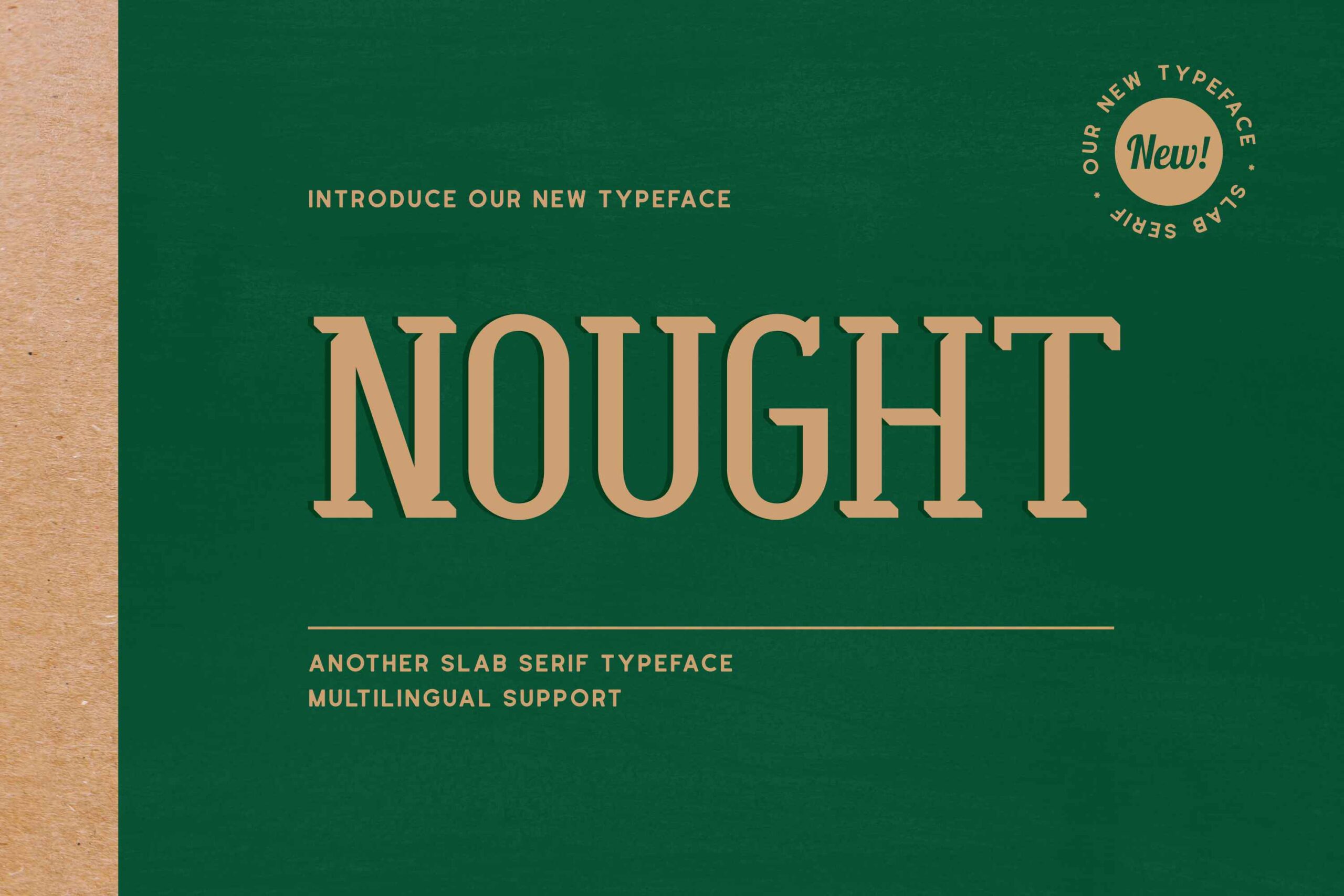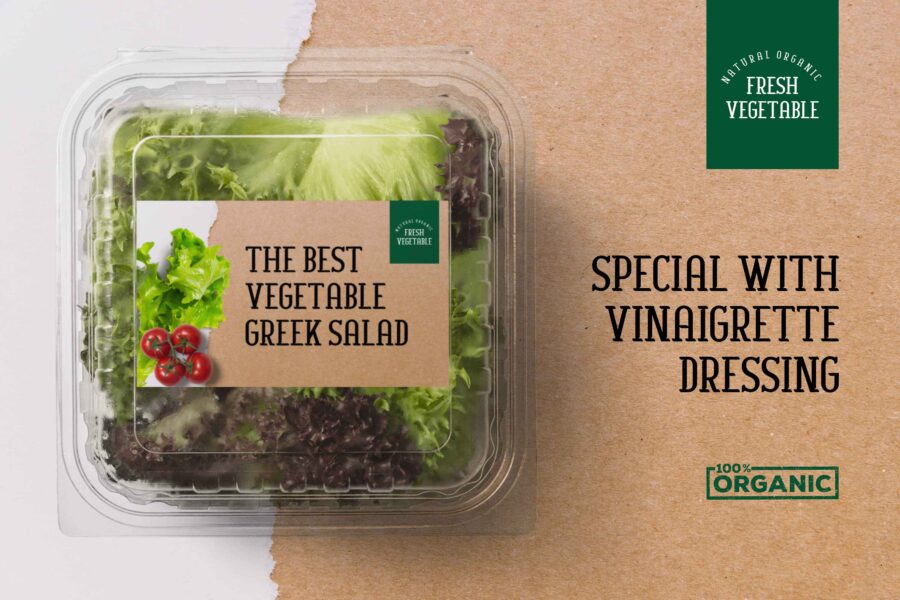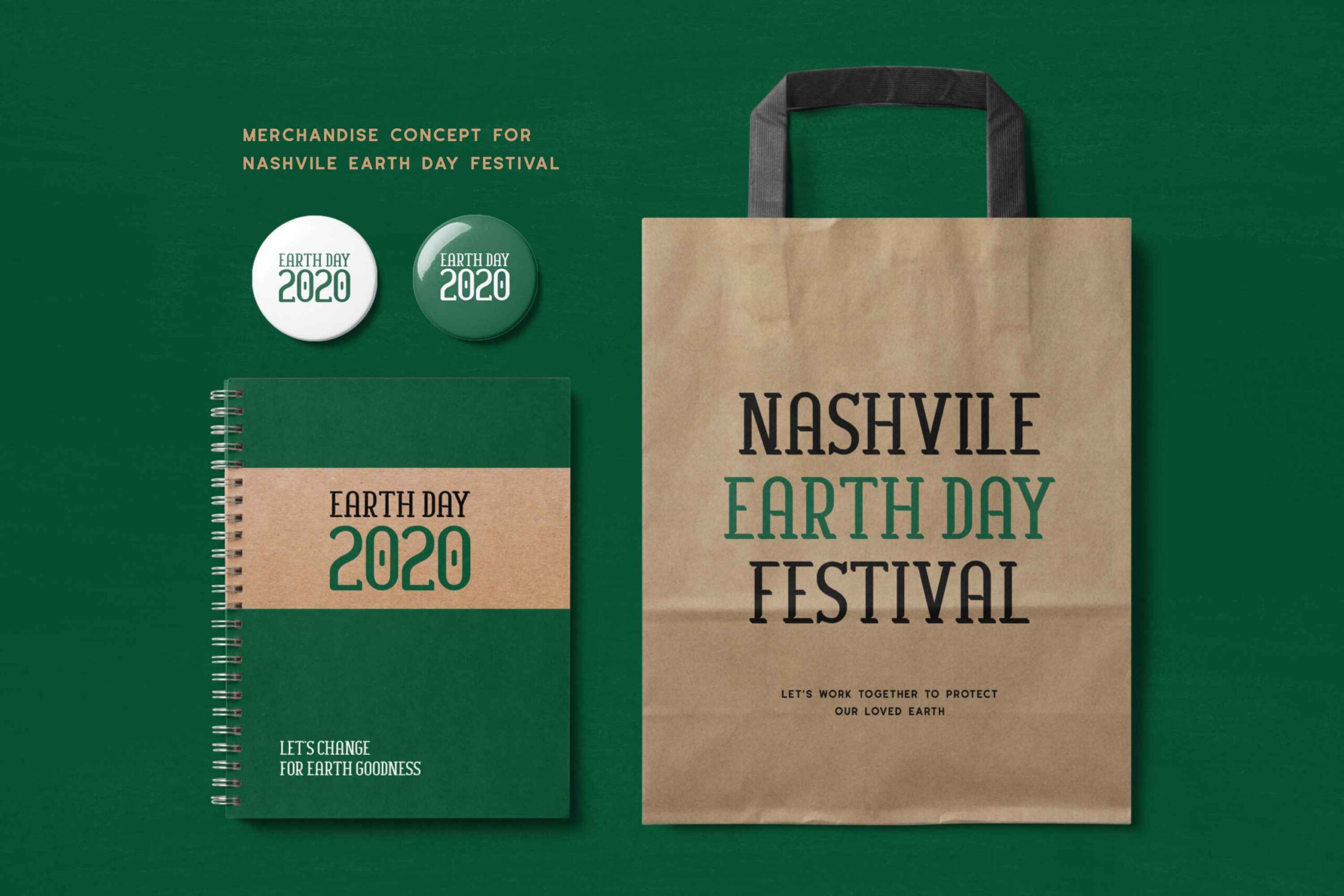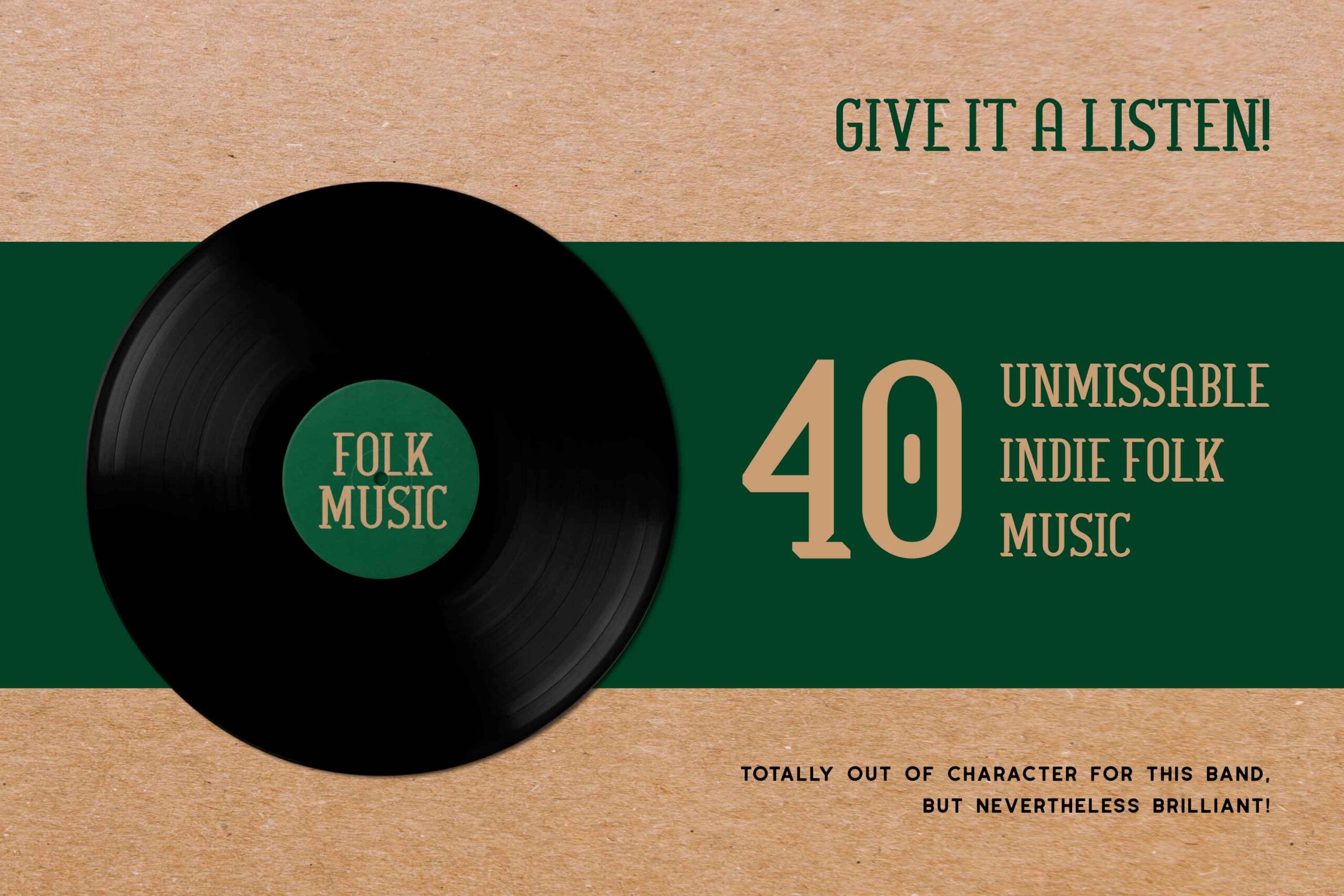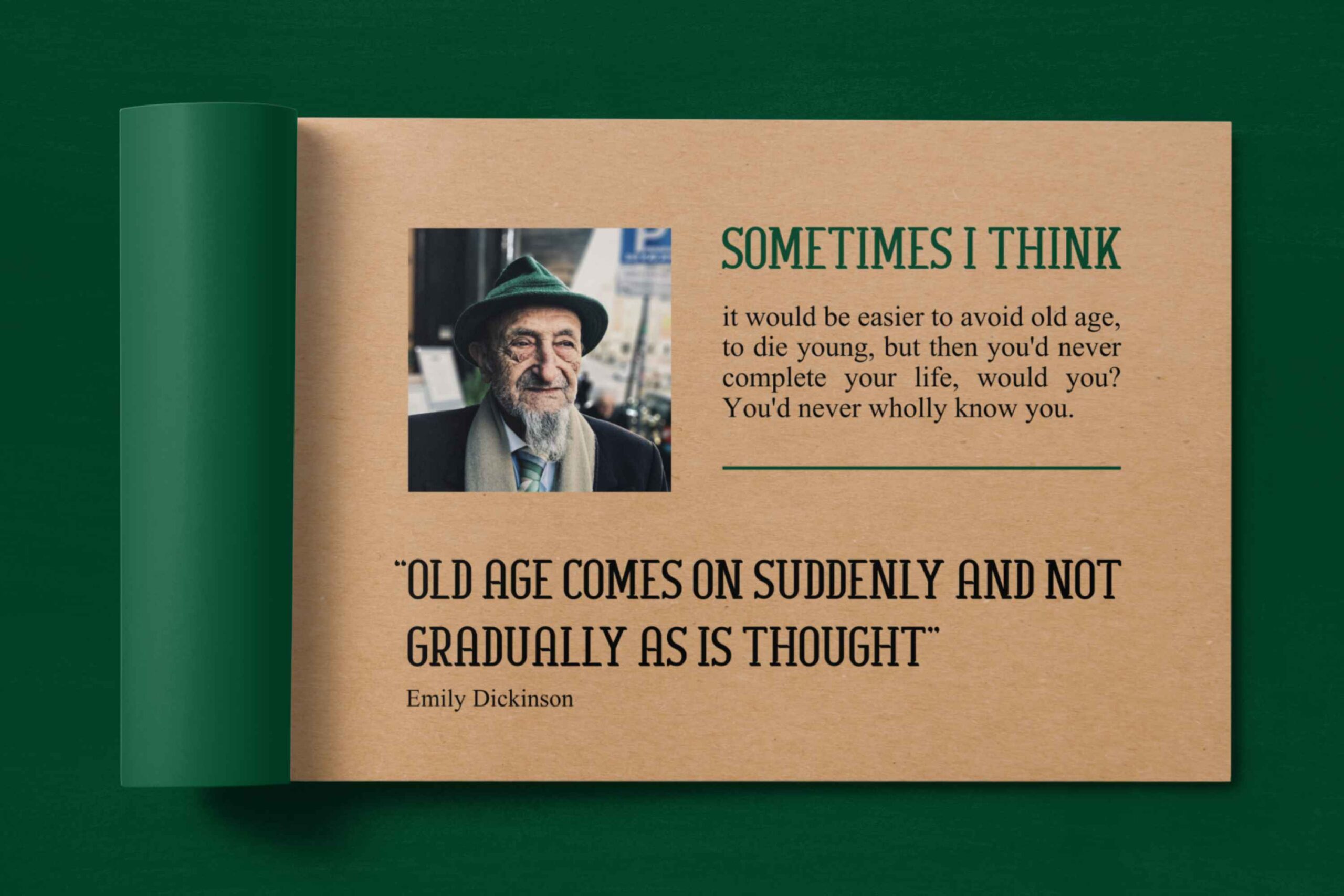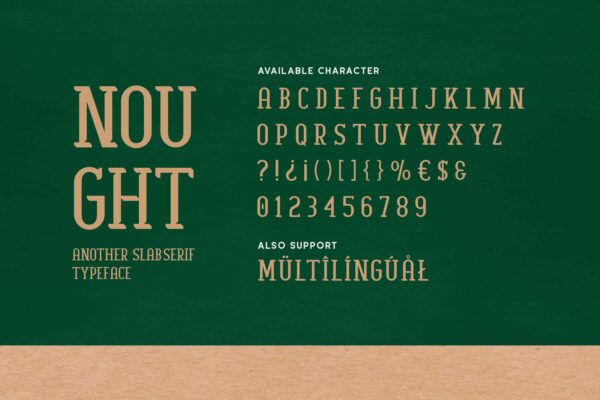
Nought is a classic slab serif font that blends vintage charm with modern clarity. Its strong serifs, slightly curved terminals, and high legibility make it a perfect match for eco-conscious branding, organic packaging, editorial layouts, and handcrafted product labels. The font evokes a rustic yet refined character that suits both formal and earthy design needs.
With full uppercase, lowercase, numbers, punctuation, and multilingual support, Nought adapts easily to a wide range of creative applications. Whether it’s a nature-focused campaign, folk music album, or artisanal food label, this font helps deliver a grounded and trustworthy message.